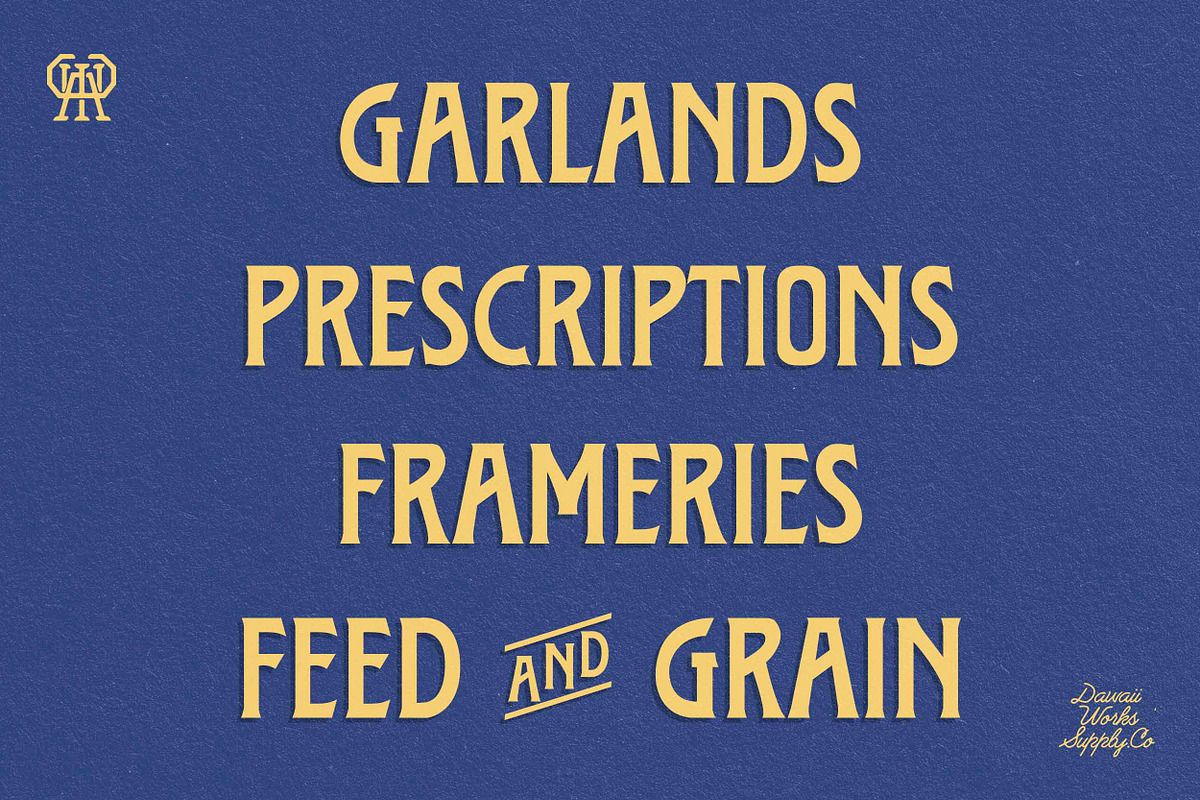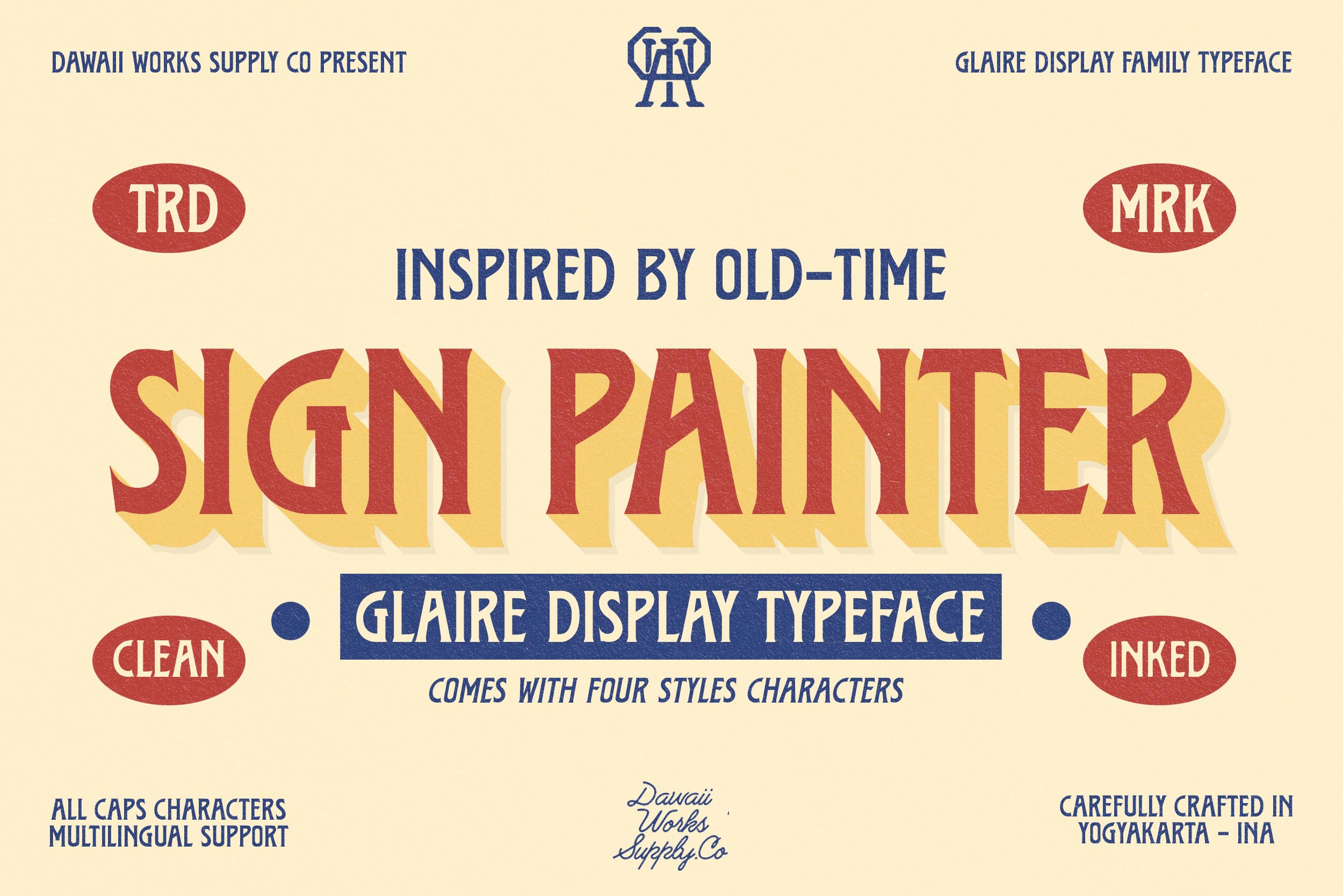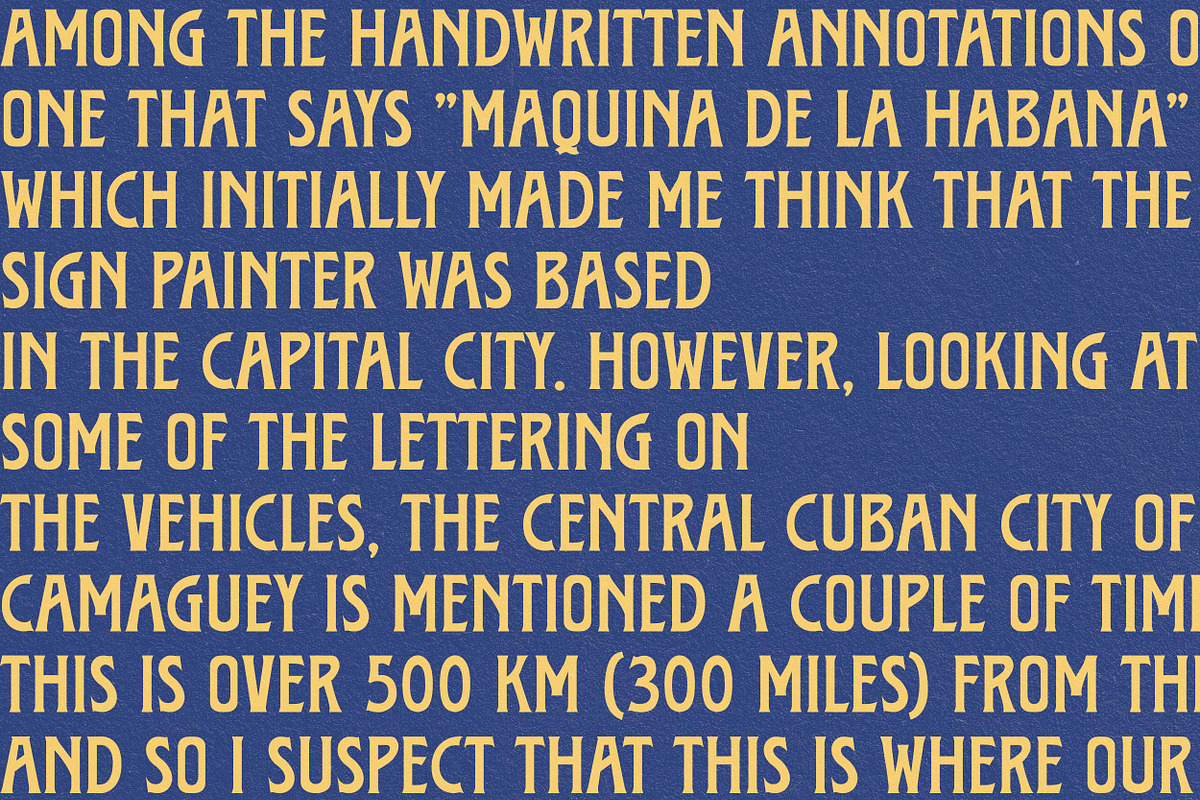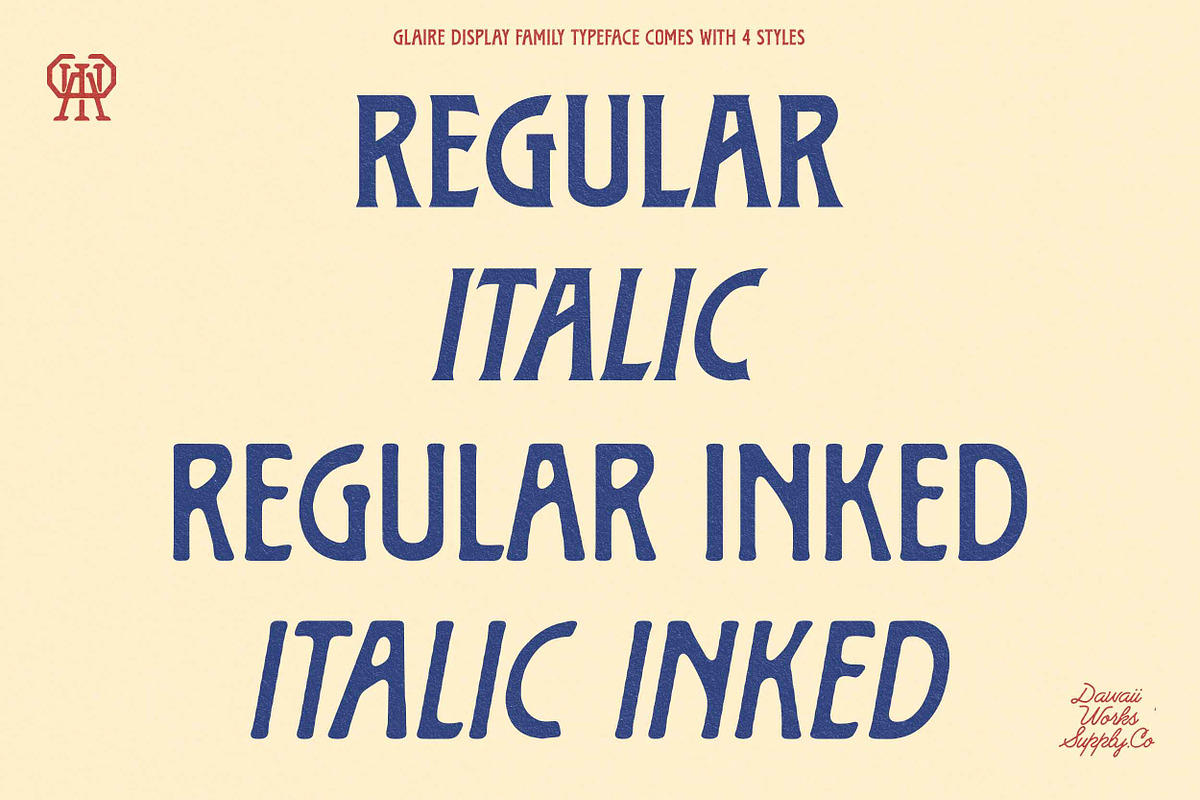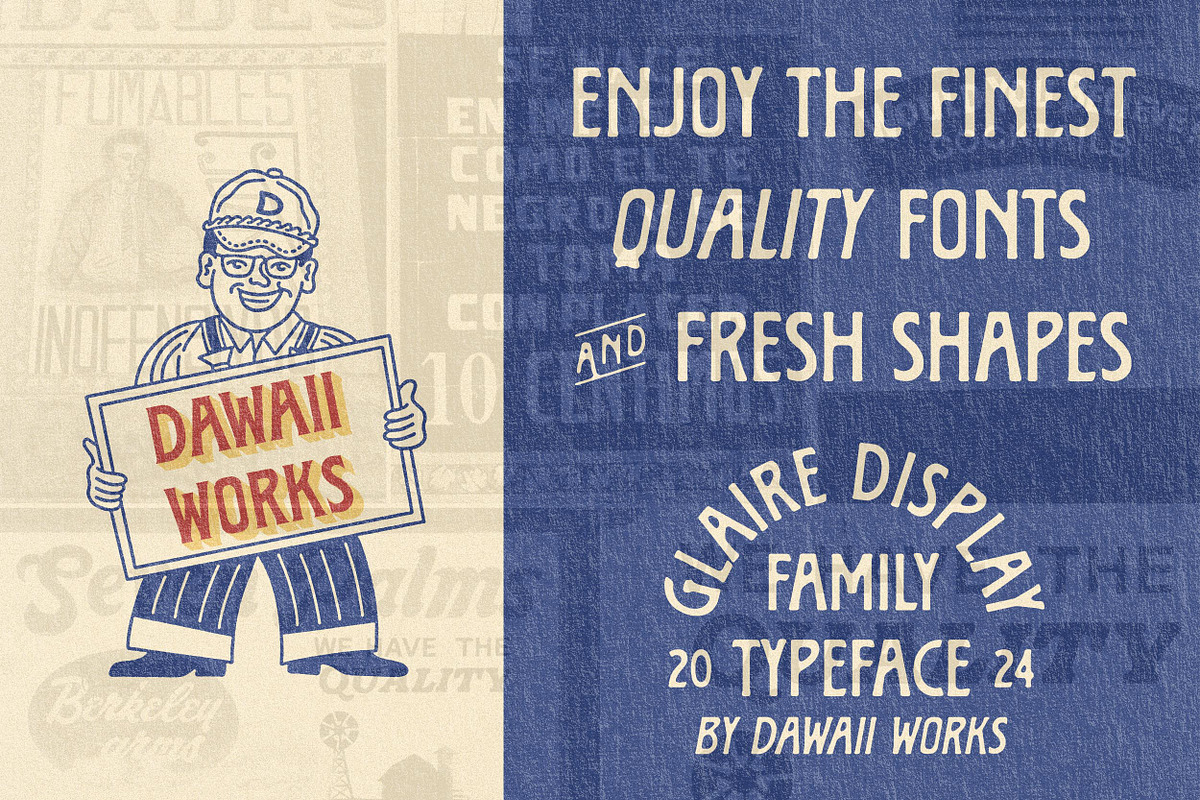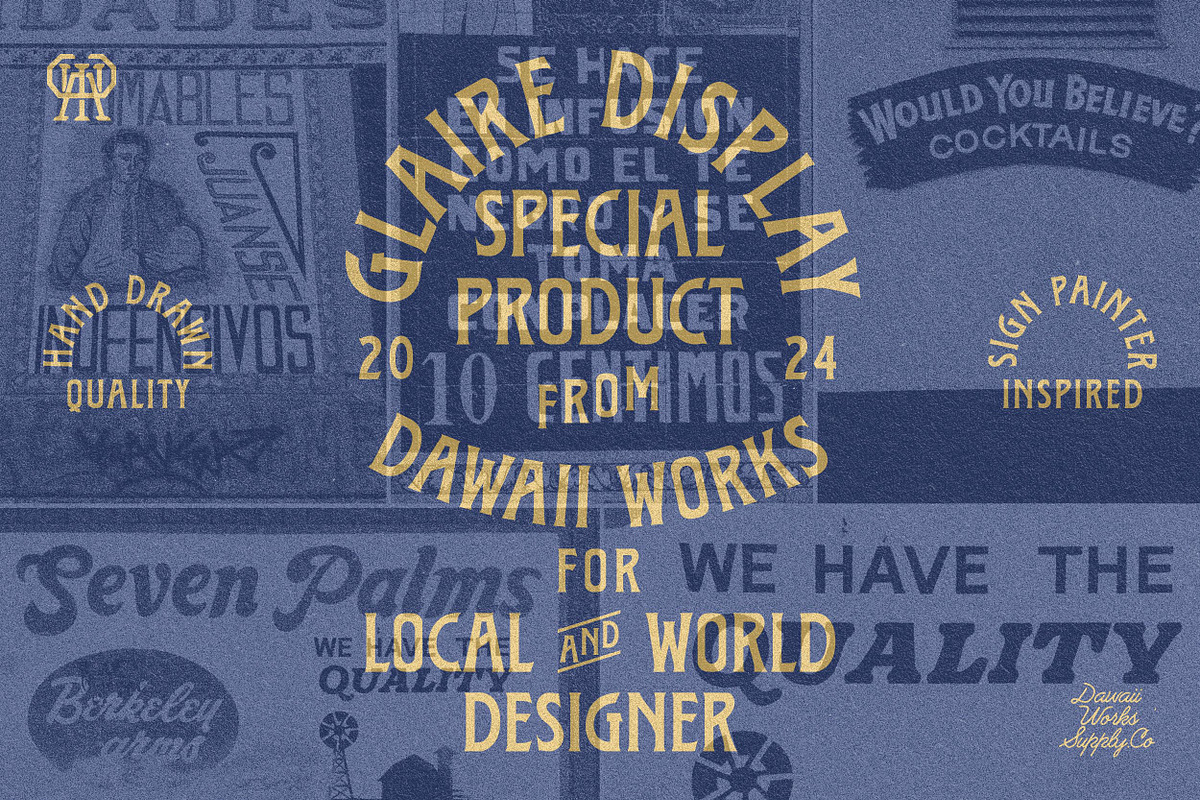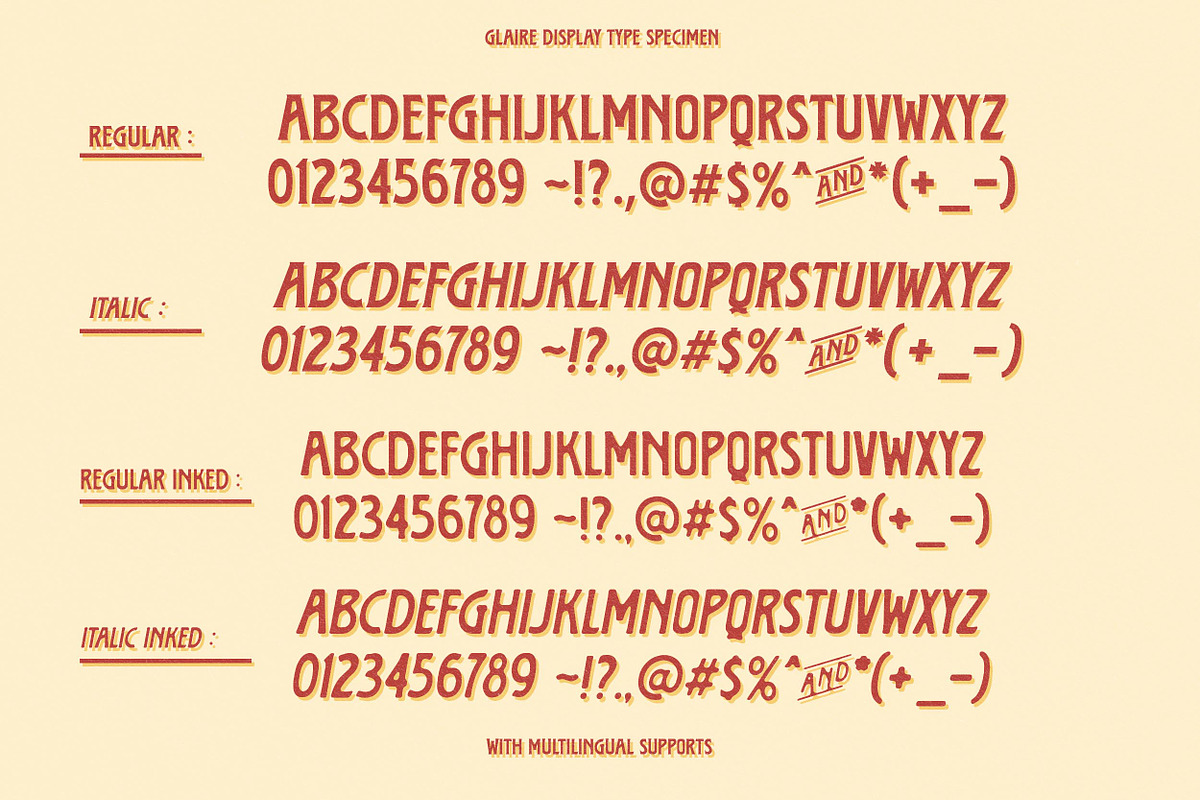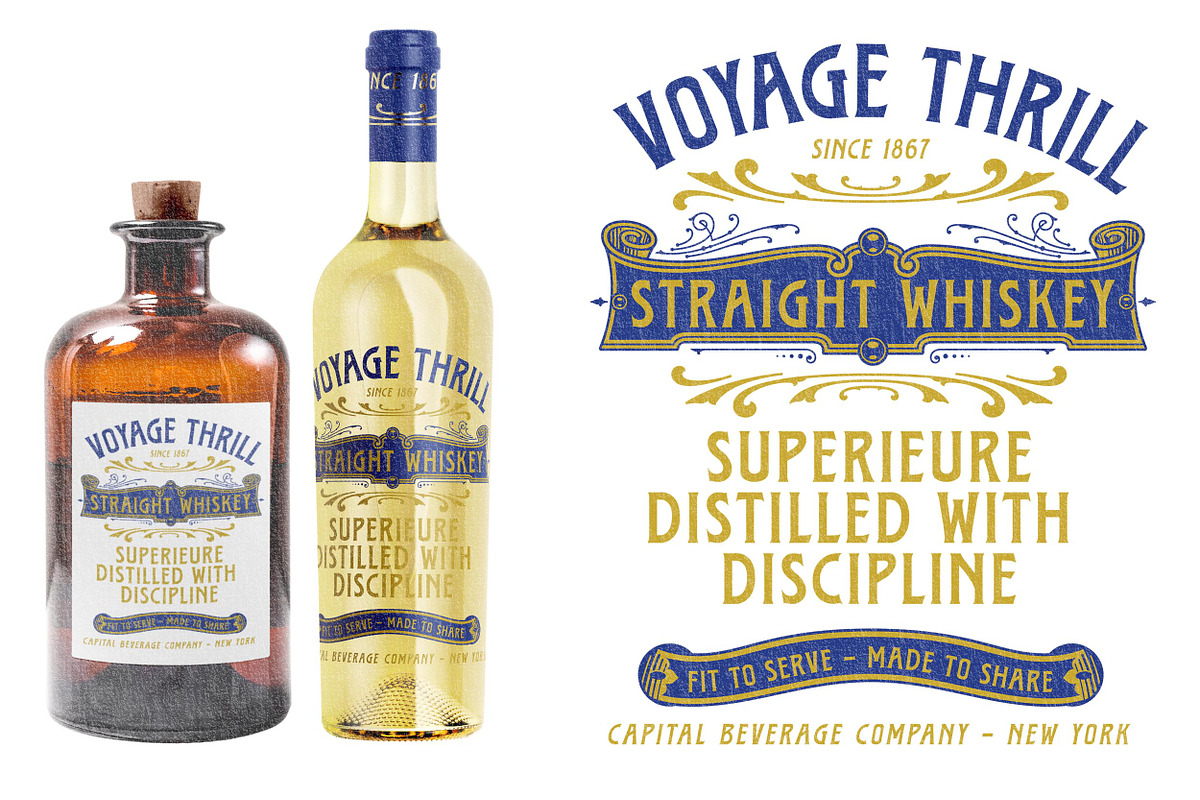
Glaire Display Family Typeface
Glaire Display: A Nostalgic Tribute to Vintage Sign Painting
Introducing Glaire Display, a stunning new typeface that captures the essence of classic sign painting with a contemporary flair. Inspired by the art and craft of vintage sign painters, Glaire Display brings a touch of retro sophistication to modern design projects.
Glaire Display showcases a rich, handcrafted quality, characterized by its elegant curves and distinctive letterforms that echo the charm of old-fashioned signage. Each character is meticulously designed to reflect the artistry and attention to detail found in traditional hand-painted signs.